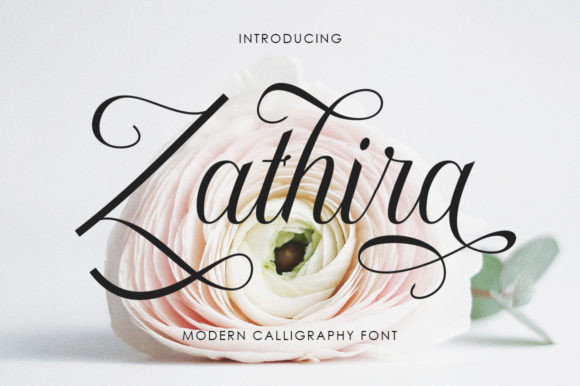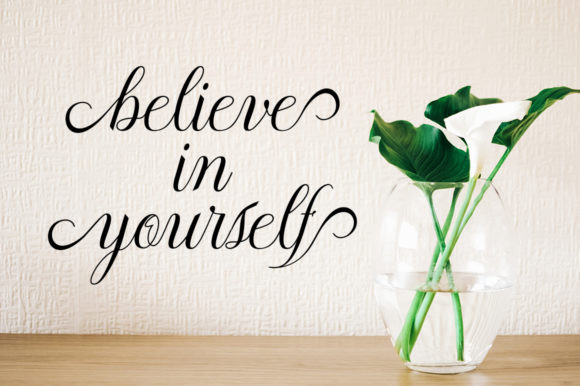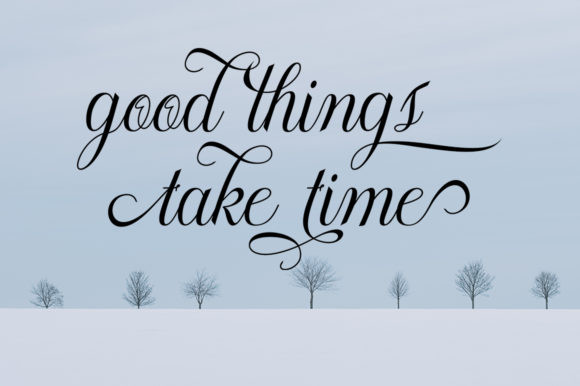
Zathira Font
Zathira feels equally charming and elegant. This modern handwritten font will appeal to a wide range of crafty ideas, from letterheads and titles, to stationery.